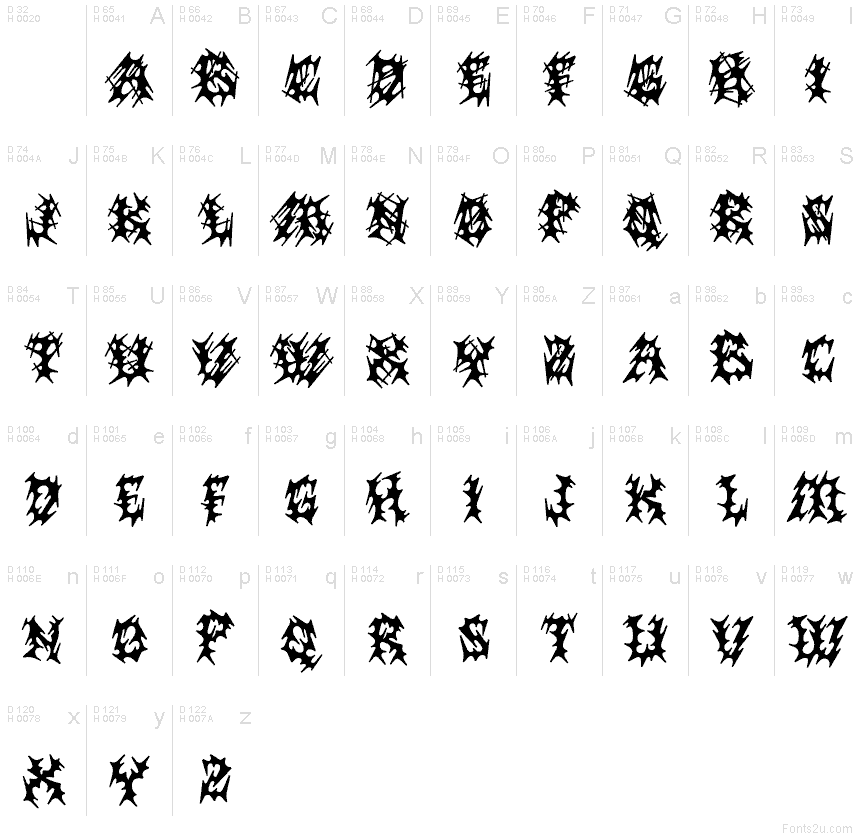
CS Carnage Regular Demo
CS Carnage font by Craft Supply Co. is a scary display font designed to convey visual energy. It has sharp elements that give it chaotic and aggressive traits in addition to the grunge look which a complete design would have. CS Carnage is for making an immediate impression since its vibe requires no explanation.